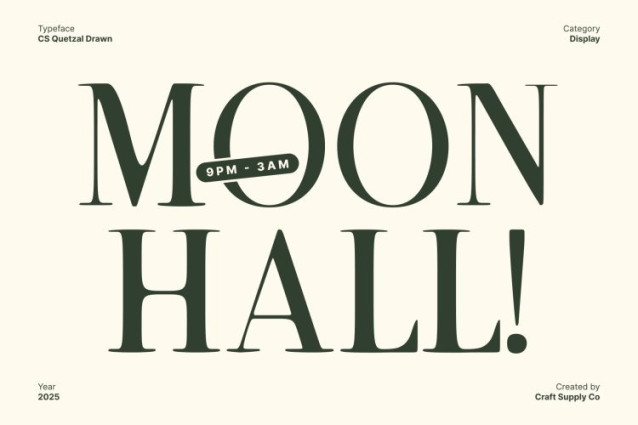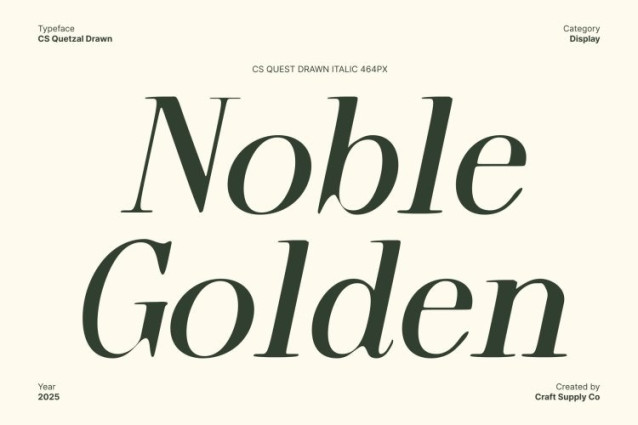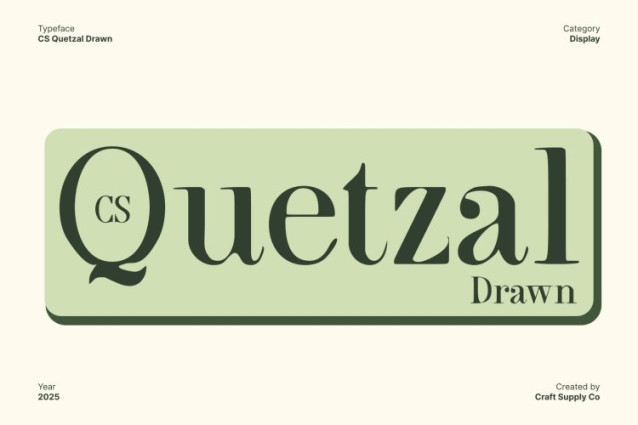
CS Quetzal Drawn Font
CS Quetzal Drawn Font This serif font combines classic shapes with a retro style, creating a soft, timeless aesthetic. Its gentle curves and balanced structure convey elegance while maintaining a relaxed, approachable feel, making it ideal for designs that celebrate vintage beauty with modern freshness.
Drawn Effect for Artistic and Nostalgic Expression
The drawn effect adds a handcrafted texture to each character, enhancing the font’s nostalgic vibe. This artistic detailing brings warmth, personality, and visual interest, giving your typography a distinctive, handcrafted appeal that feels both classic and contemporary.
Perfect for Elegant, Fresh, and Vintage-Inspired Designs
Ideal for branding, posters, packaging, editorial layouts, or creative projects, this font merges elegance with a relaxed and fresh design sensibility. Its soft retro character ensures your projects communicate style, charm, and timeless appeal.
Elegant, Nostalgic, and Visually Captivating
By blending retro serif forms with a drawn artistic texture, this font delivers a typeface that is both nostalgic and contemporary. It’s the perfect choice for designers seeking a classic yet fresh style that emphasizes elegance, charm, and visual warmth.